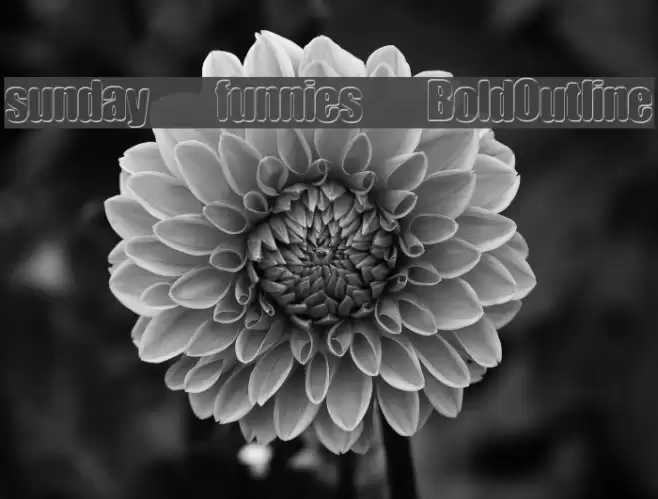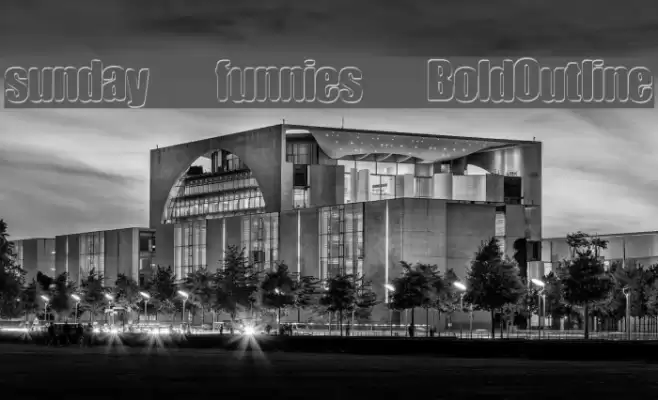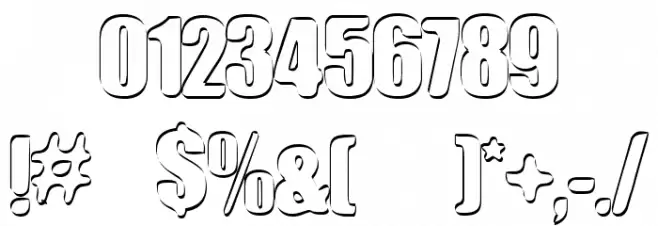
sunday funnies BoldOutline Font
sunday funnies BoldOutline Description
This playful and bold font features a distinct outline style that gives it a cartoonish and fun appearance. The characters are well-rounded and have a substantial presence, making them stand out in any design. The uppercase and lowercase letters maintain a consistent style, with smooth curves and a uniform thickness throughout. The numbers and special characters are equally bold, ensuring they complement the alphabetic characters seamlessly. This font's outline effect adds a layer of depth, making it ideal for designs that require a lively and engaging look.
A bold, outlined font with a playful and cartoonish style from Uncategorized fonts.
- Proposed Projects: Ideal for comic books, children's books, playful branding, and eye-catching posters.
- Overall Style: Playful, Cartoonish